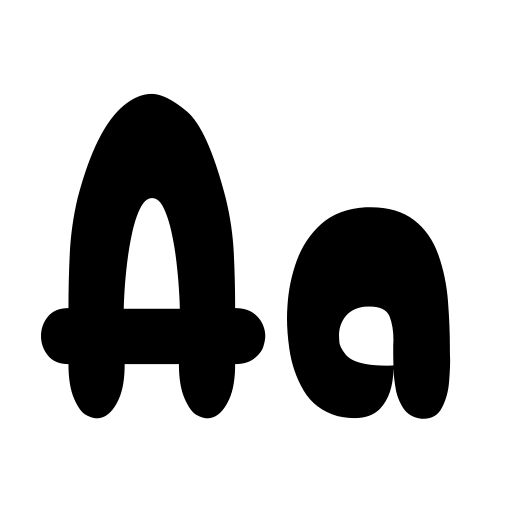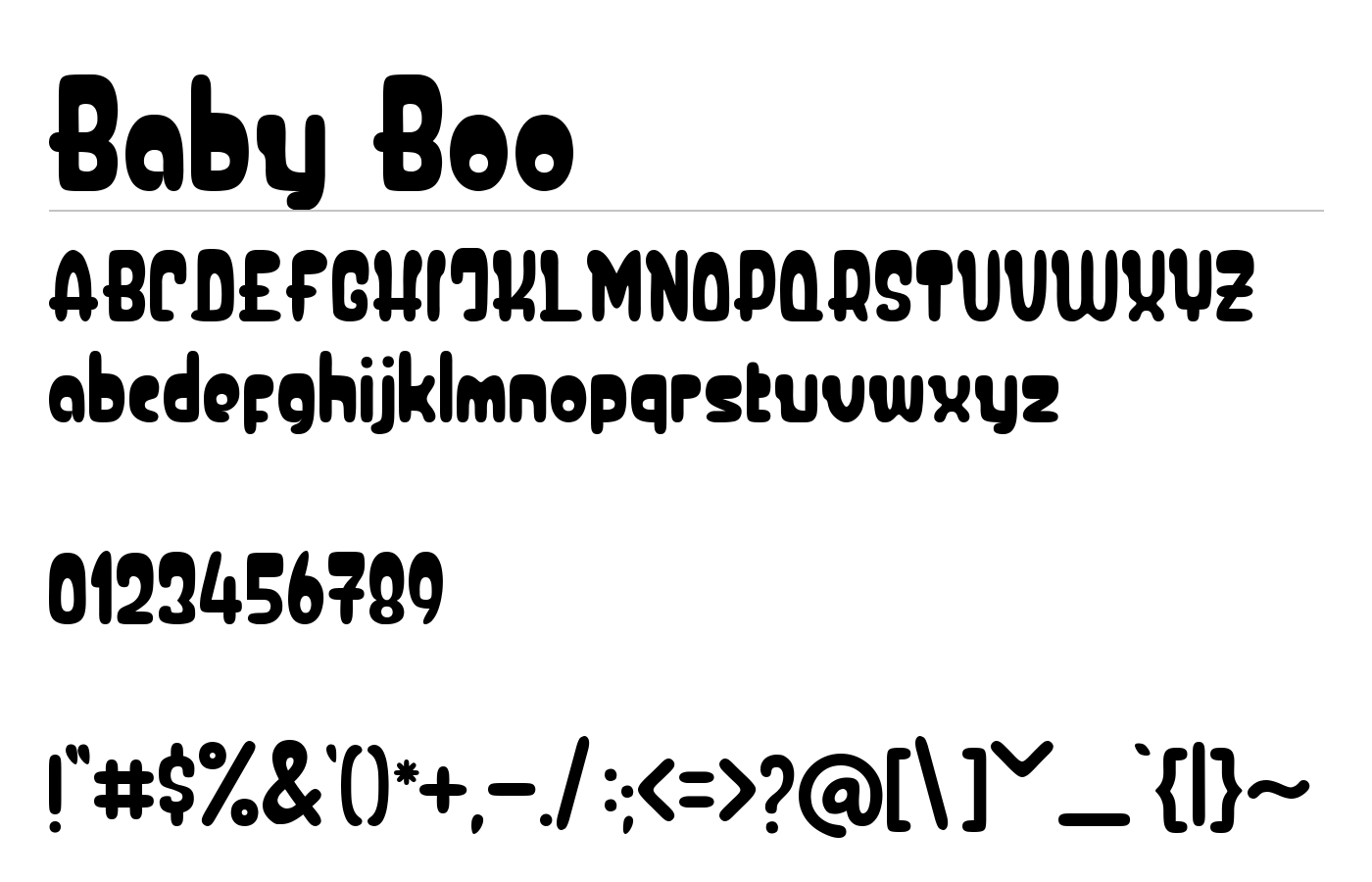
Baby Boo is a playful, rounded sans serif font with bold weight and soft, friendly shapes that give it a warm, approachable feel. Its chunky letterforms and low contrast make it perfect for children's branding, fun packaging, and casual headlines where a lighthearted, cheerful vibe is desired. This font works well for projects needing a quirky, inviting appearance that captures attention without feeling harsh or formal.
Baby Boo Font
About Baby Boo Font